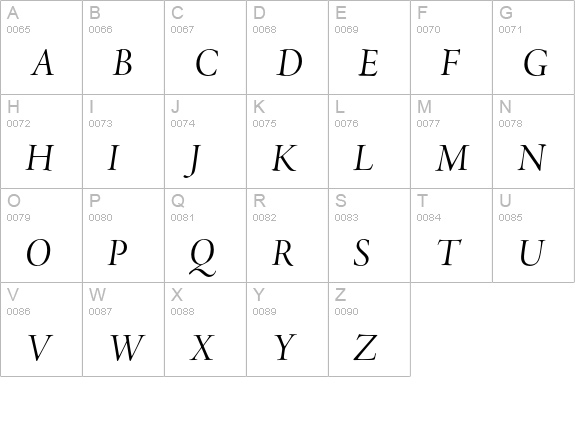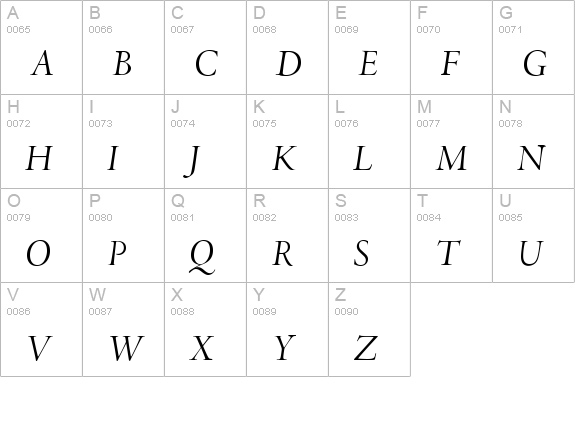
Adobe Jenson Pro Italic Display Font Details
Adobe Jenson Pro Italic Display is a distinctive, italic variant in the Adobe typeface family \xE2\x80\x94 well suited to design and typography projects.
Adobe Jenson Pro Italic Display is a sophisticated and elegant font choice that adds a touch of refinement to any design project. With its graceful italics and intricate detailing, this font exudes a sense of timeless beauty and classical charm. Whether used for headlines, titles, or special text elements, Adobe Jenson Pro Italic Display brings a sense of luxury and sophistication to your work. The best part is that this exquisite font is available for free download at FontsMarket.com. Now you can elevate your designs with this premium typeface without any cost. Don't miss out on the opportunity to add Adobe Jenson Pro Italic Display to your font collection and enhance the visual appeal of your projects. Download it today and experience the unmatched beauty and versatility of this stunning font.